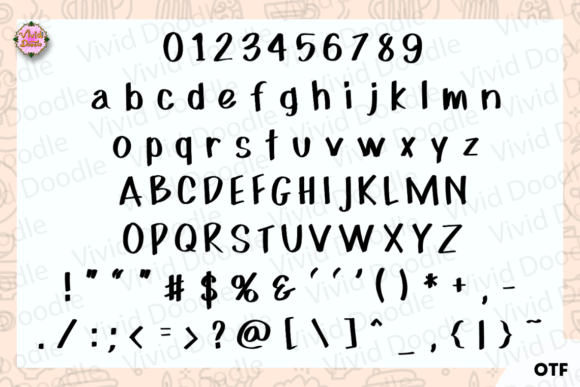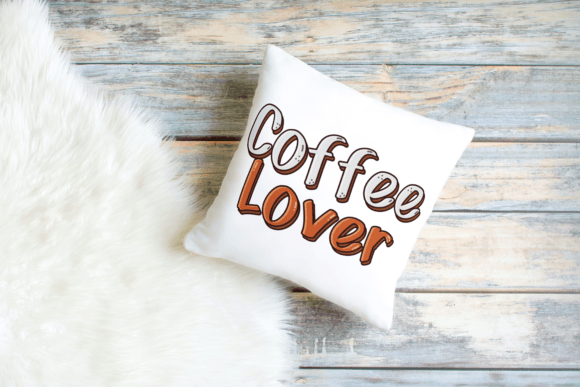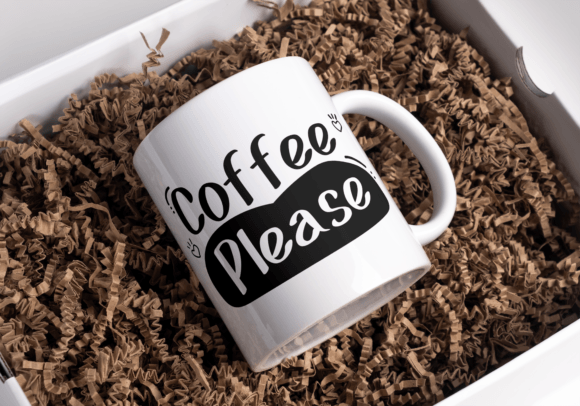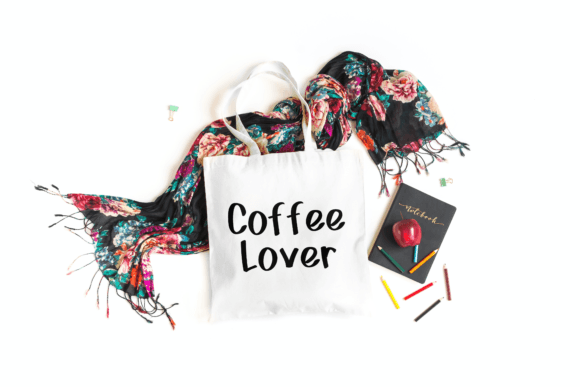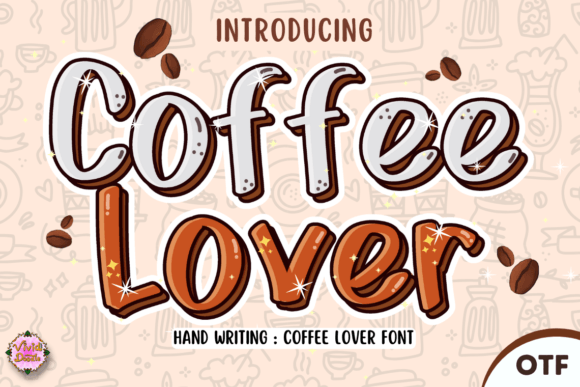
Coffee Lover Font: A Festive and Versatile Addition to Your Design Collection
As the holiday season approaches, designers and crafters are on the lookout for unique and festive elements to add a touch of merriment to their projects. If you’re a coffee lover and a fan of hand-lettered fonts, you’re in luck! Our newly crafted Coffee Lover Font is here to bring warmth and joy to your creations, no matter the time of year.
A Festive and Hand-Lettered Font
Our Coffee Lover Font is a one-of-a-kind, hand-lettered font that’s been carefully designed to capture the essence of the festive season. With its playful and enchanting charm, this font is perfect for adding a touch of holiday cheer to any project. Whether you’re working on a Christmas card, a holiday-themed craft, or simply want to add some festive flair to your digital creations, this font is sure to impress.
Adaptable and Versatile
While our Coffee Lover Font was specifically designed for the holiday season, its versatility makes it suitable for a wide range of projects and applications. From festive holiday designs to everyday creations, this font can add a unique and personalized touch to your work. Whether you’re a designer, crafter, or DIY enthusiast, you’ll love the flexibility and creative possibilities that this font offers.
What Makes Coffee Lover Font Special?
So, what sets our Coffee Lover Font apart from other fonts on the market? Here are just a few reasons why we’re so excited about this unique and exclusive font:
- Hand-lettered with love: Each letter has been carefully crafted by hand, giving the font a personal and distinctive feel.
- Festive and fun: The font’s playful design is guaranteed to bring a smile to your face and add a touch of festive cheer to your projects.
- Adaptable and versatile: Use it for holiday-themed designs, or incorporate it into your everyday creations for a unique and personalized touch.
- Exclusive and unique: Our Coffee Lover Font is a one-of-a-kind design that’s sure to make your projects stand out from the crowd.
How to Use Coffee Lover Font in Your Projects
Ready to get creative with our Coffee Lover Font? Here are just a few ideas to get you started:
- Holiday cards and invitations: Add a touch of festive cheer to your holiday cards and invitations with this beautiful hand-lettered font.
- Digital and print designs: Use the font in your digital and print designs, from social media graphics to flyers and brochures.
- Crafts and DIY projects: Add a personal touch to your crafts and DIY projects, from scrapbooking to papercraft and more.
- Branding and packaging: Use the font to create unique and eye-catching branding and packaging designs that will help your business stand out.
Get Ready to Fall in Love with Coffee Lover Font
If you’re looking for a unique and festive font to add a touch of holiday cheer to your projects, look no further than our Coffee Lover Font. With its hand-lettered design, adaptable versatility, and exclusive charm, this font is sure to become a favorite in your design collection. So why wait? Dive into the holiday spirit and experience the merriment of the season with our enchanting Coffee Lover Font.
| Font Name | Coffee Lover Font |
| Author | VividDoodle |